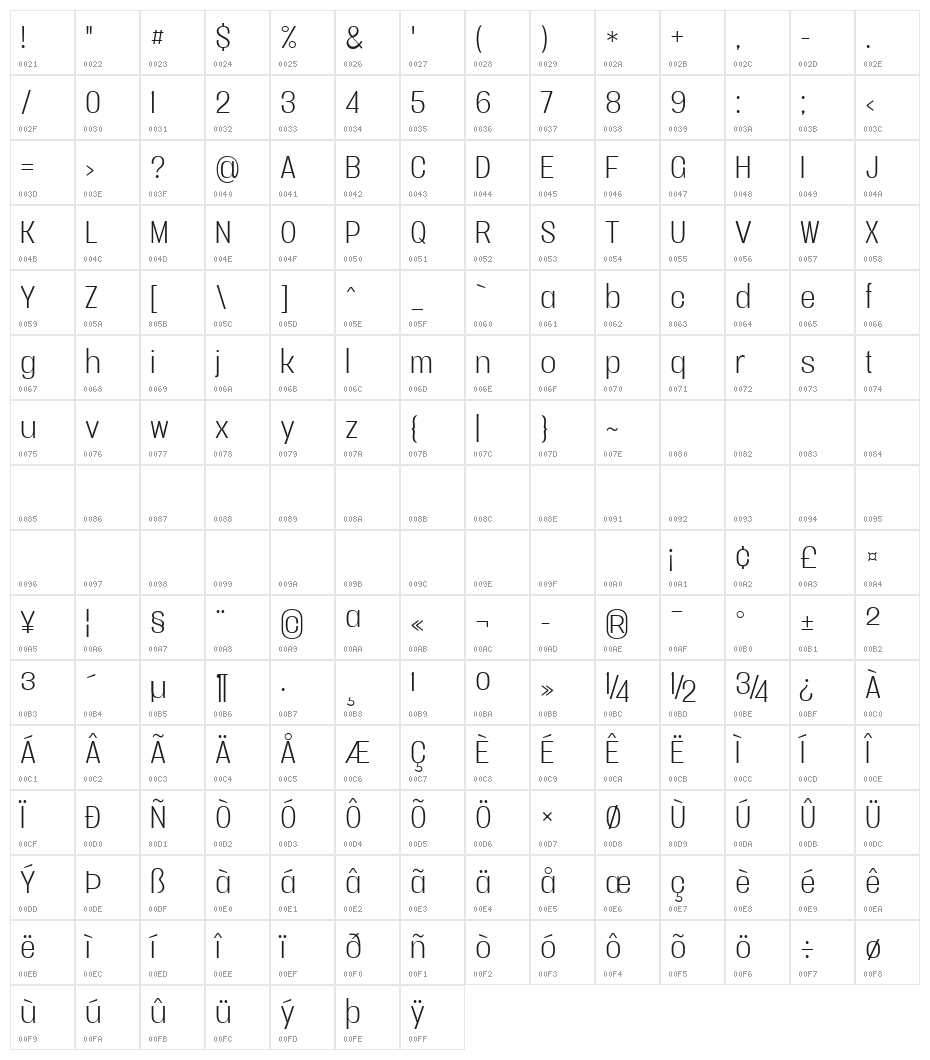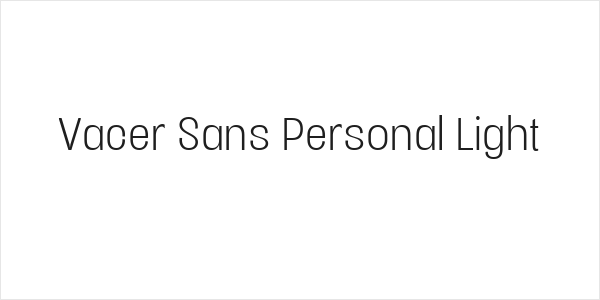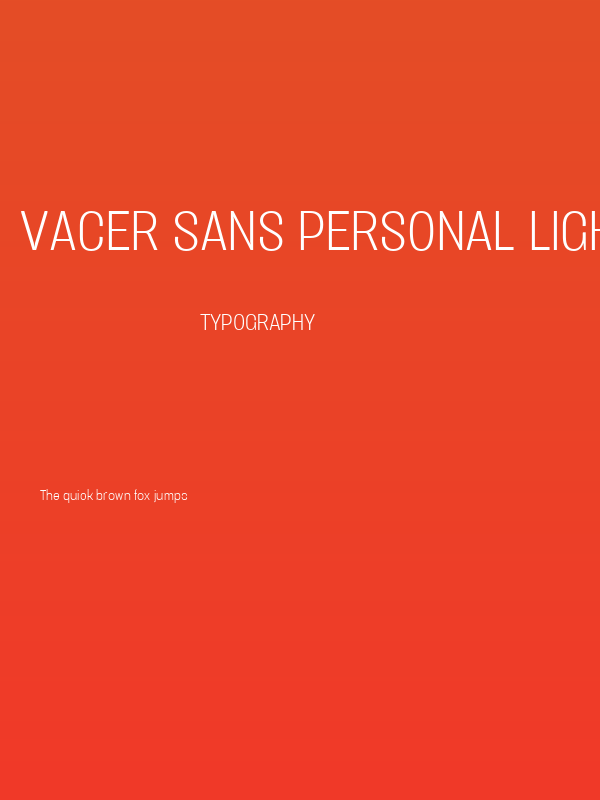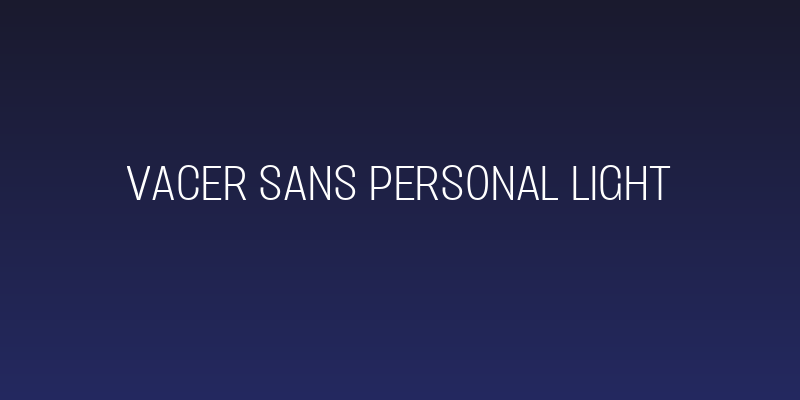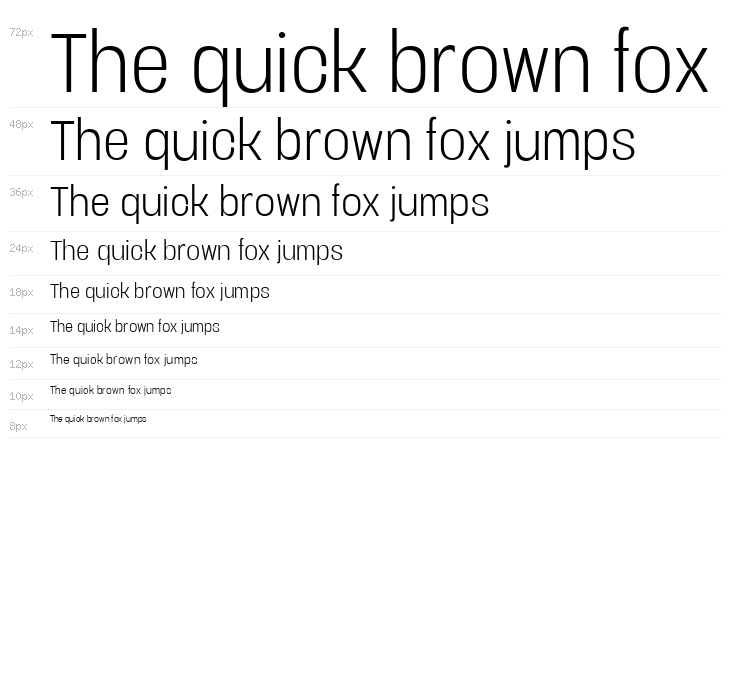
Vacer Sans Personal Light Font
Vacer Sans Personal Light Description
This font presents a clean and modern sans-serif style, characterized by its light weight and minimalistic design. The characters are evenly spaced, providing a balanced and harmonious appearance. The uppercase and lowercase letters maintain a consistent height, contributing to a uniform look. The numerals are clear and easily distinguishable, enhancing readability. Special characters are well-defined, adding versatility to the font's application. Its simplicity and clarity make it suitable for a wide range of design projects, from digital interfaces to print media.
| Proposed Projects | Ideal for digital interfaces, branding, advertising, and editorial design. |